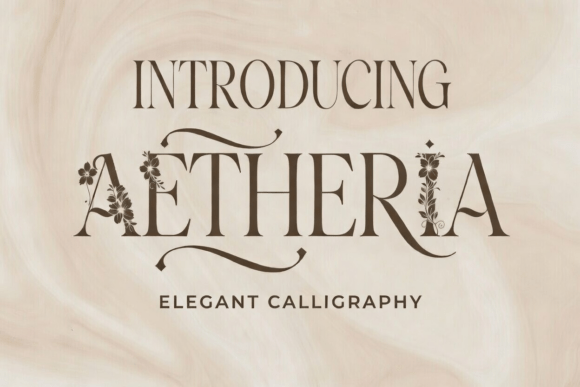
Introducing Aetheria Font: Elevate Your Designs with Elegant Botanical Charm
In the world of typography, few fonts manage to capture the essence of romance and sophistication as effortlessly as Aetheria. This stunning botanical display font is designed to bring a touch of elegance and refinement to your designs, making it perfect for projects that demand a premium aesthetic. With its delicate floral silhouettes, sweeping calligraphic swashes, and high-contrast serif details, Aetheria is sure to enchant designers and crafters alike.
The Beauty of Aetheria
Aetheria is more than just a font – it’s an experience. Its elegant, high-contrast serif typeface is intricately woven with delicate floral silhouettes, creating a truly unique and captivating visual identity. The sweeping, calligraphic swashes add a luxurious, custom feel to your typography, making every word and phrase a work of art. Whether you’re designing for feminine branding, wedding invitations, or high-end product labels, Aetheria brings a soft, natural elegance that elevates any project.
Key Features of Aetheria Font
- Delicate Floral Silhouettes: Intricately woven into the letters, these silhouettes add a touch of whimsy and romance to your designs.
- Sweeping Calligraphic Swashes: Luxurious and custom-feeling, these swashes bring a sense of sophistication and elegance to your typography.
- High-Contrast Serif Typeface: Aetheria’s high-contrast serif details create a visually striking effect, perfect for display text and headlines.
- Feminine and Elegant: Aetheria’s design is specifically tailored to bring a soft, natural elegance to feminine branding and design projects.
Aetheria is designed to be versatile and easy to use, making it perfect for a wide range of design projects. Whether you’re a professional designer or a crafter looking to add a personal touch to your work, Aetheria’s intuitive design and elegant aesthetic make it easy to incorporate into your workflow.
Use Cases for Aetheria Font
- Feminine Branding: Aetheria is perfect for designing logos, business cards, and marketing materials for feminine brands.
- Wedding Invitations: Add a touch of romance and elegance to your wedding invitations and stationery with Aetheria.
- Product Labels: Elevate your product labels with Aetheria’s luxurious, high-end aesthetic.
- Packaging Design: Use Aetheria to create beautiful, eye-catching packaging that stands out on store shelves.
Why Choose Aetheria Font?
With so many fonts available, why choose Aetheria? Here are just a few reasons why Aetheria stands out:
- Unique and Eye-Catching: Aetheria’s delicate floral silhouettes and sweeping swashes make it a truly unique and eye-catching font.
- Elegant and Sophisticated: Aetheria brings a touch of elegance and sophistication to any design project.
- Versatile: Aetheria can be used for a wide range of design projects, from feminine branding to wedding invitations.
- Easy to Use: Aetheria is designed to be intuitive and easy to use, making it perfect for designers and crafters of all levels.
In conclusion, Aetheria is a stunning botanical display font that is sure to elevate your designs with its elegant charm and sophisticated aesthetic. With its delicate floral silhouettes, sweeping calligraphic swashes, and high-contrast serif details, Aetheria is the perfect choice for designers and crafters looking to add a touch of romance and elegance to their work.